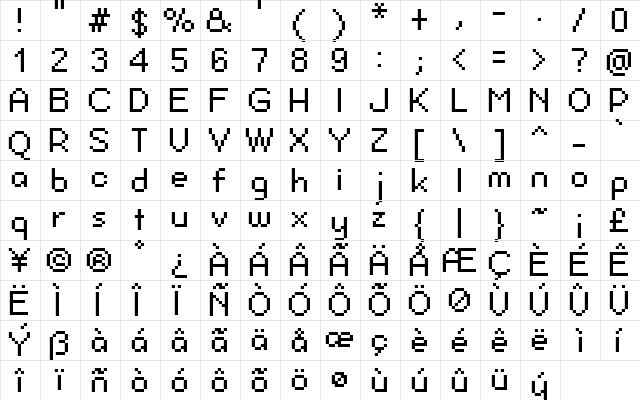
Pixel Berry 08/84 Ltd.Edition Regular
Design Context for Pixel Berry 08/84 Ltd.Edition Typeface
Pixel Berry 08/84 Ltd.Edition celebrates the constraints of early digital type, turning pixel geometry into a distinctive and immediately recognisable style.
A natural choice for retro game titles, chiptune music branding, 8-bit UI, and digital nostalgia projects.
Pro Tip: Pair Pixel Berry 08/84 Ltd.Edition with flat colour palettes and simple geometric UI elements to reinforce its digital aesthetic.